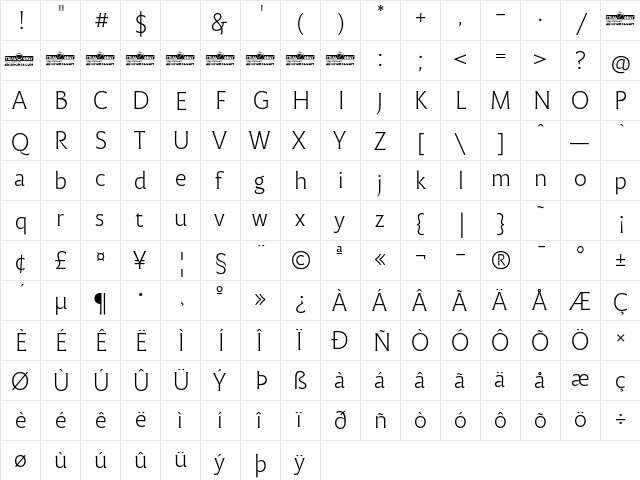
Malik Trial Light
| Foundry | Zetafonts |
| Designer | Andrea Tartarelli |
Design Context for Malik Trial Typeface
Malik Trial is a composed and adaptable typeface that performs quietly and consistently across a wide range of design contexts. Its slender proportions lend an understated elegance to any composition.